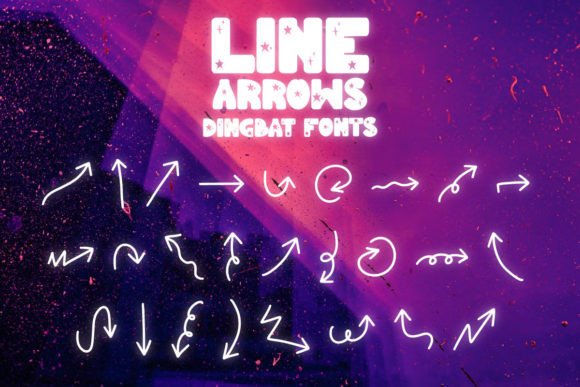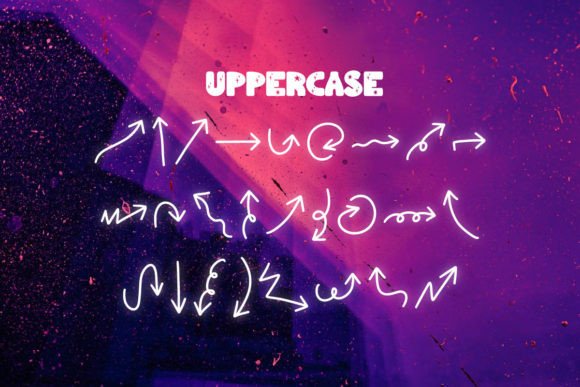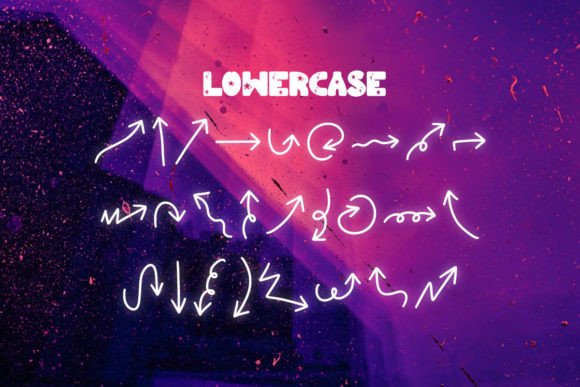
Line Arrows Font
Introducing “Line Arrows,” a one-of-a-kind font that features a collection of hand-drawn arrows to add a touch of authenticity and creativity to your designs. Whether you’re working on graphic design projects, presentations, or any creative endeavor that requires clean and visually appealing arrows, Line Arrows is the perfect choice.
Each arrow in Line Arrows has been meticulously hand-drawn to capture a sense of organic movement and a human touch. These arrows offer a unique and distinctive look compared to standard, computer-generated arrows, making them ideal for projects where you want to infuse a personal and artistic feel.
The versatility of Line Arrows makes them suitable for a wide range of design applications. Use them to highlight important points in your presentations, create eye-catching infographics, enhance your website’s navigation, or add a creative element to your social media posts. These arrows can also be utilized in print materials such as brochures, flyers, and posters to guide the viewer’s attention or create visual interest.
With Line Arrows, you have complete control over the size, color, and placement of the arrows, allowing you to customize them to suit your specific design needs. Whether you prefer a minimalist and clean look or a more vibrant and playful style, Line Arrows offers endless possibilities to enhance your projects.
So, if you’re looking to incorporate clean and hand-drawn arrows with a human touch into your designs, Line Arrows is the perfect solution. Let these unique arrows add a touch of authenticity and creativity to your projects, helping you guide your audience’s attention and create visually captivating designs. With Line Arrows, your designs will stand out and make a lasting impression.